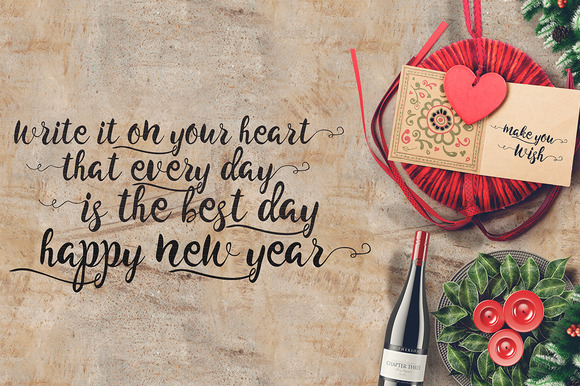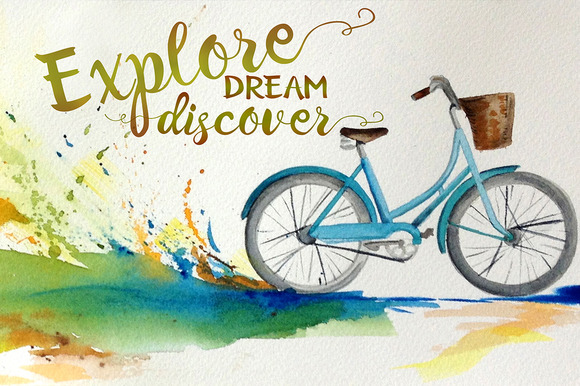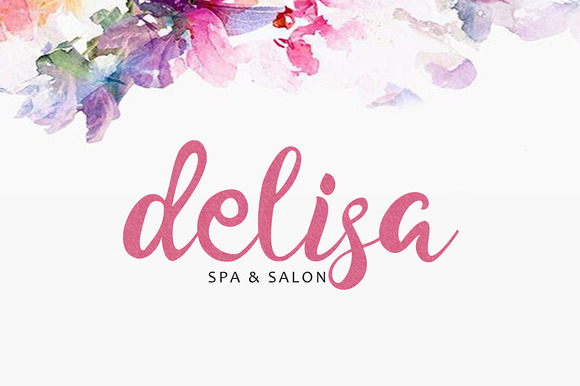
Daviya Font: The Perfect Hand-Inked Font for Organic Typography
Are you a designer or crafter looking for a unique and eye-catching font to elevate your creative projects? Look no further than the Daviya Font! This hand-inked font is perfect for creating organic, fluid typography on a variety of products, from branding and invitations to flyers, posters, and wedding invitations.
What is Daviya Font?
Daviya Font is a carefully crafted hand-inked font that boasts a fun, imperfect baseline. Its bold and slightly gritty texture gives it a distinctive, one-of-a-kind look that’s sure to grab attention. Unlike traditional fonts, Daviya Font has a unique, handmade quality that adds a touch of personality to any design.
Key Features of Daviya Font
- Hand-inked font: Daviya Font is meticulously hand-inked, giving it a distinctive, organic look.
- Fun, imperfect baseline: The font’s irregular baseline adds a touch of whimsy and playfulness to any design.
- Bold and gritty texture: Daviya Font’s bold, gritty texture makes it perfect for creating eye-catching typography.
- Perfect for organic typography: This font is designed to create fluid, natural-looking typography that’s perfect for a variety of creative projects.
Uses for Daviya Font
Daviya Font is incredibly versatile and can be used for a wide range of creative projects, including:
- Branding: Use Daviya Font to create unique and memorable branding for your business or product.
- Invitations: Add a touch of personality to your invitations with Daviya Font’s distinctive, hand-inked look.
- Flyers and posters: Create eye-catching flyers and posters with Daviya Font’s bold, gritty texture.
- Wedding invitations: Make your wedding invitations truly special with Daviya Font’s unique, handmade quality.
Why Choose Daviya Font?
So why choose Daviya Font over other fonts? Here are just a few reasons:
- Unique look: Daviya Font’s hand-inked, imperfect baseline gives it a one-of-a-kind look that’s sure to stand out.
- High-quality design: Daviya Font is carefully crafted to ensure that it looks great in any design.
- Versatile: This font can be used for a wide range of creative projects, from branding to wedding invitations.
Tips for Using Daviya Font
Here are a few tips for getting the most out of Daviya Font:
- Experiment with different sizes: Daviya Font looks great in a variety of sizes, from large headings to smaller body text.
- Pair with other fonts: Try pairing Daviya Font with other fonts to create a unique and eye-catching look.
- Use for headlines and titles: Daviya Font’s bold, gritty texture makes it perfect for headlines and titles.
In conclusion, Daviya Font is a unique and versatile hand-inked font that’s perfect for creating organic, fluid typography on a variety of products. Its bold, gritty texture and imperfect baseline give it a distinctive look that’s sure to grab attention. Whether you’re a designer or crafter, Daviya Font is a great choice for any creative project.